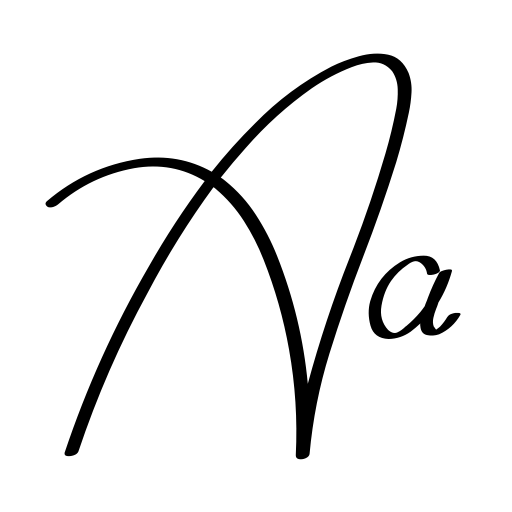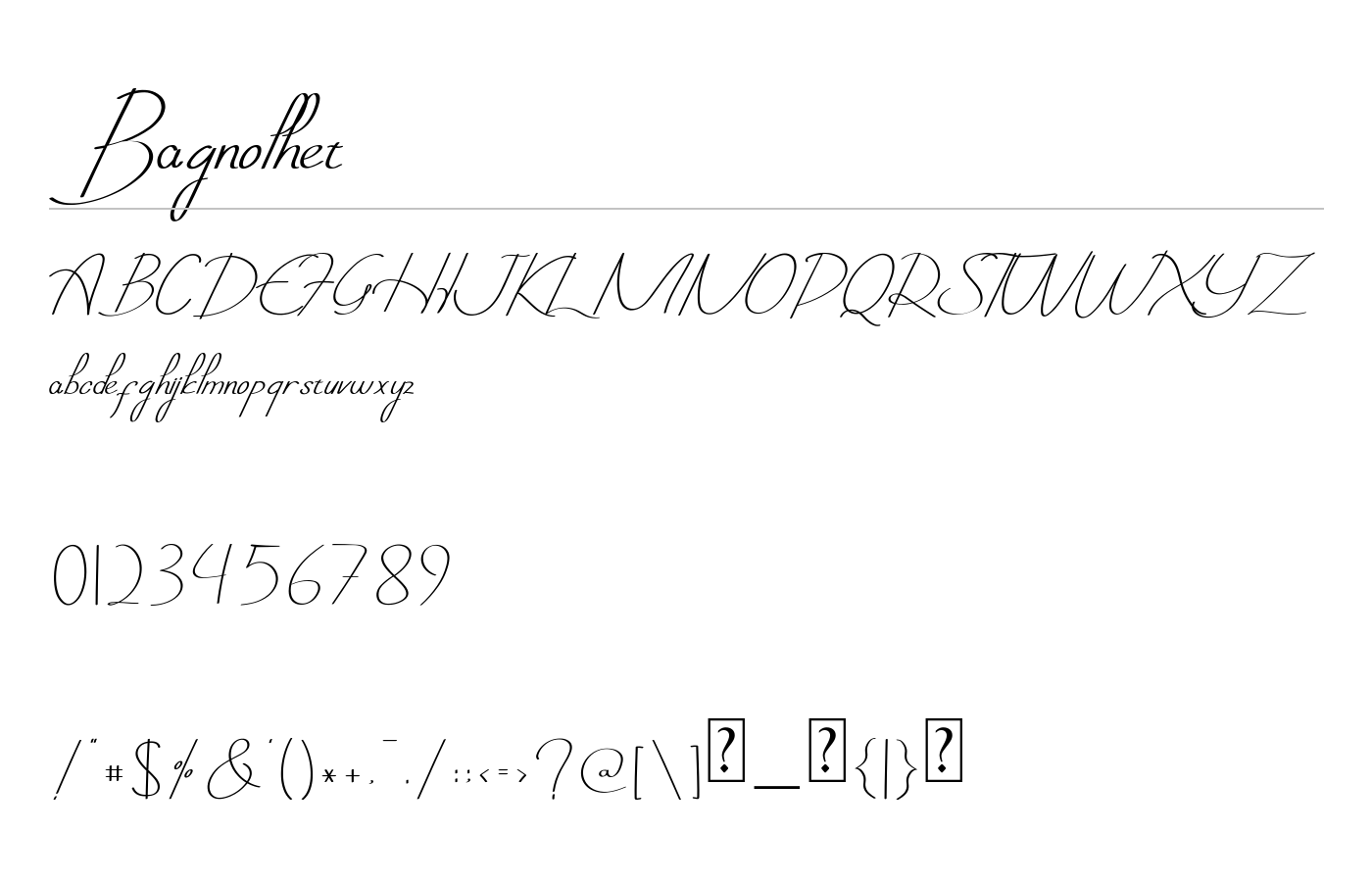
Bagnolhet is a delicate, elegant script font with slender, flowing lines and a refined, handwritten feel. Its light weight and narrow forms give it a graceful and airy appearance, perfect for sophisticated branding, invitations, or editorial headlines that need a personal yet stylish touch. This font works beautifully where a subtle, artistic elegance is desired without overwhelming the design.
Bagnolhet Font
About Bagnolhet Font